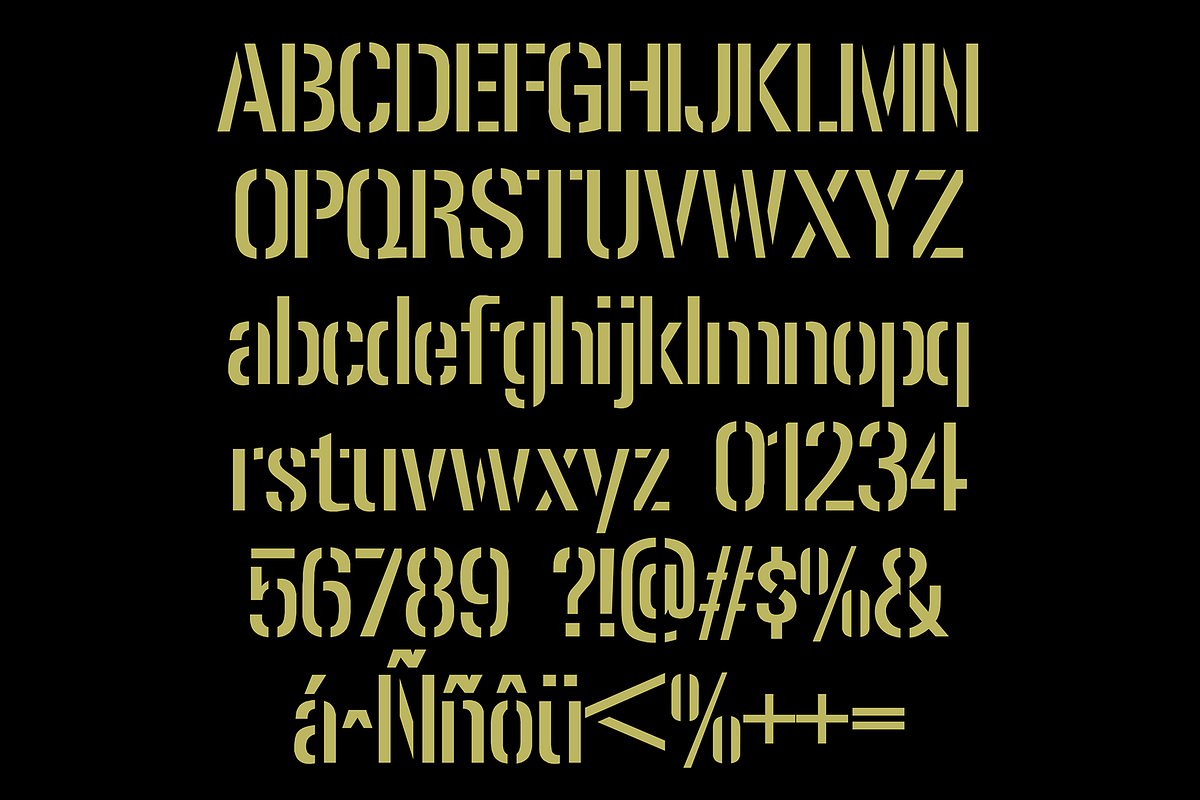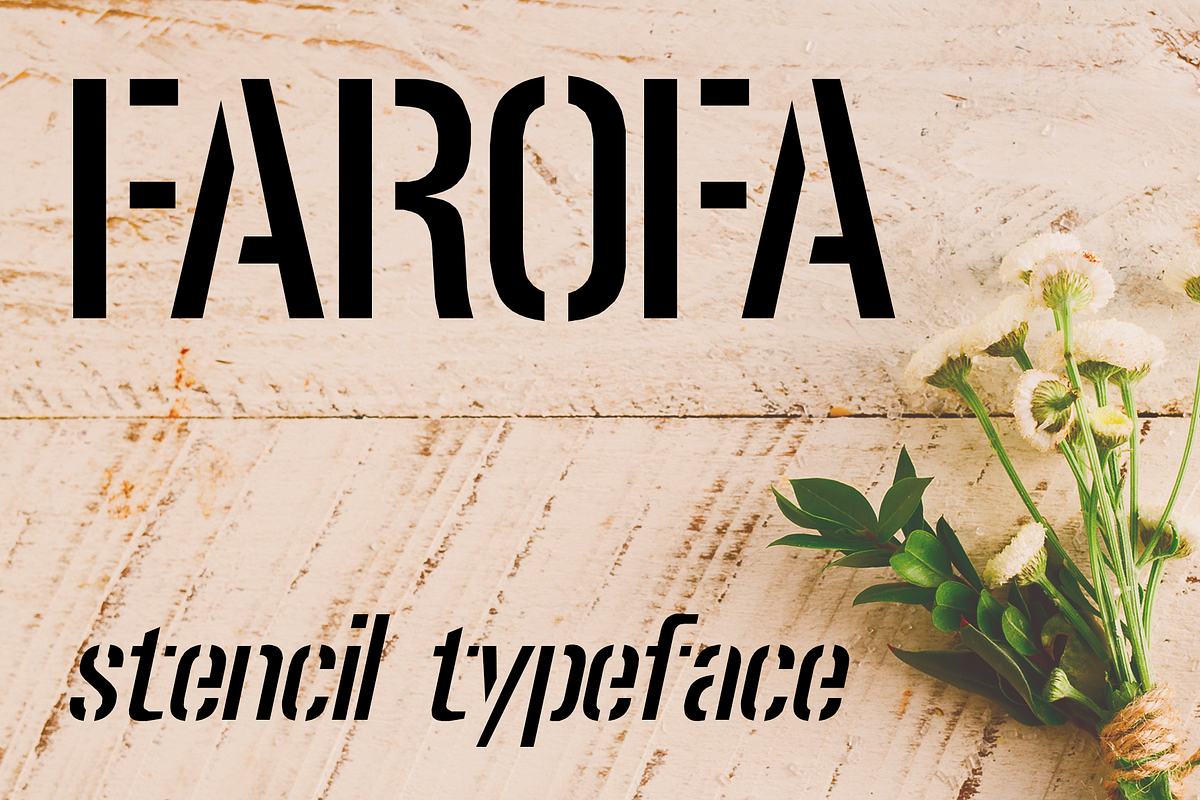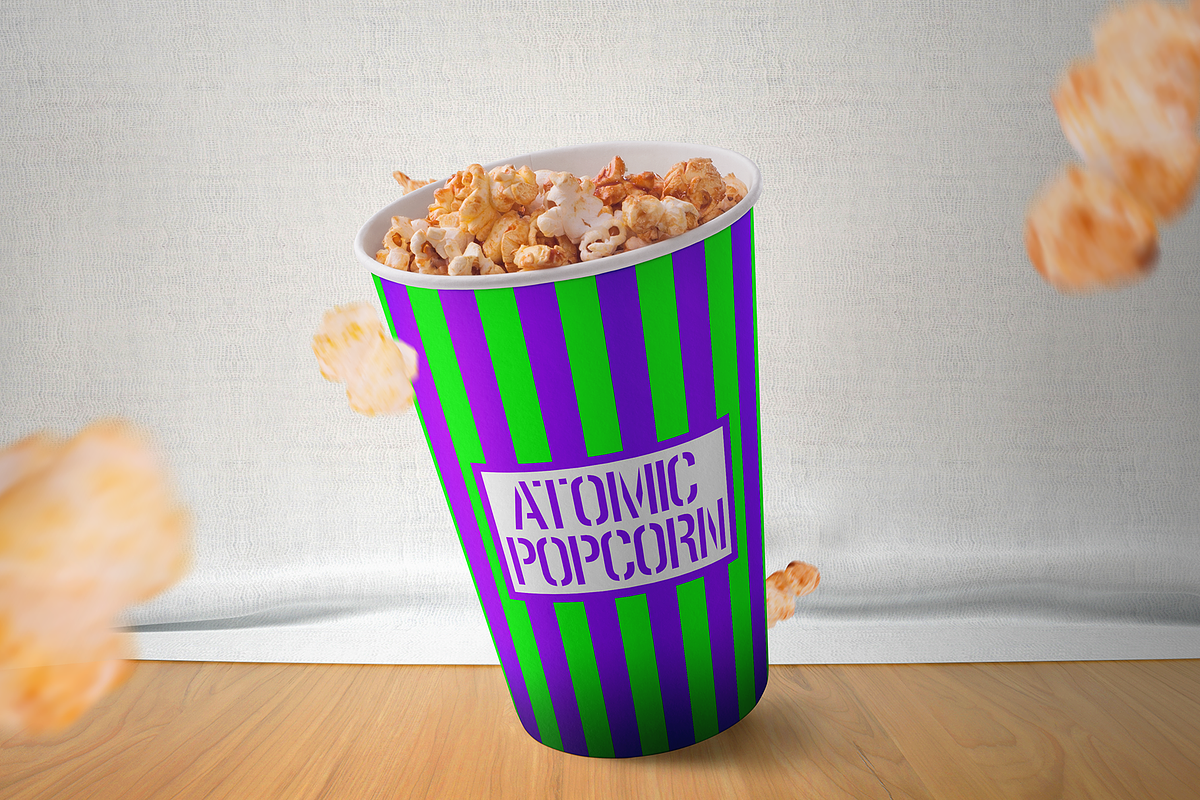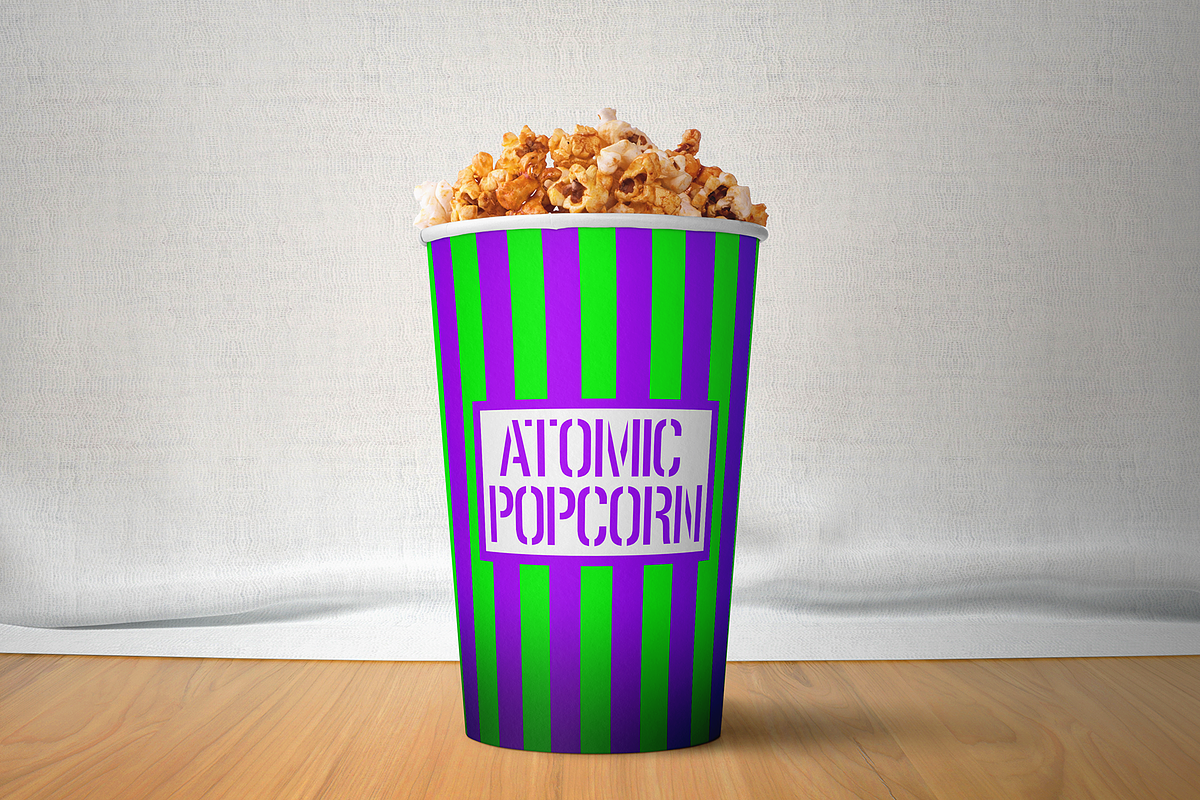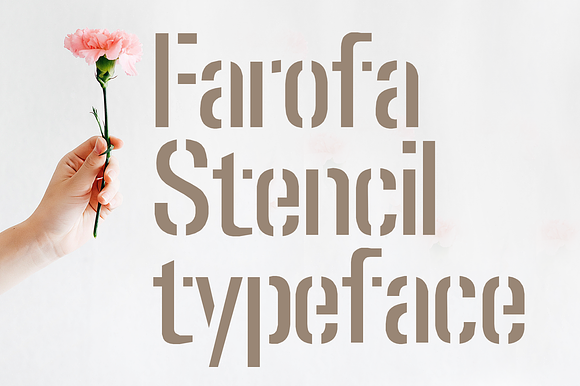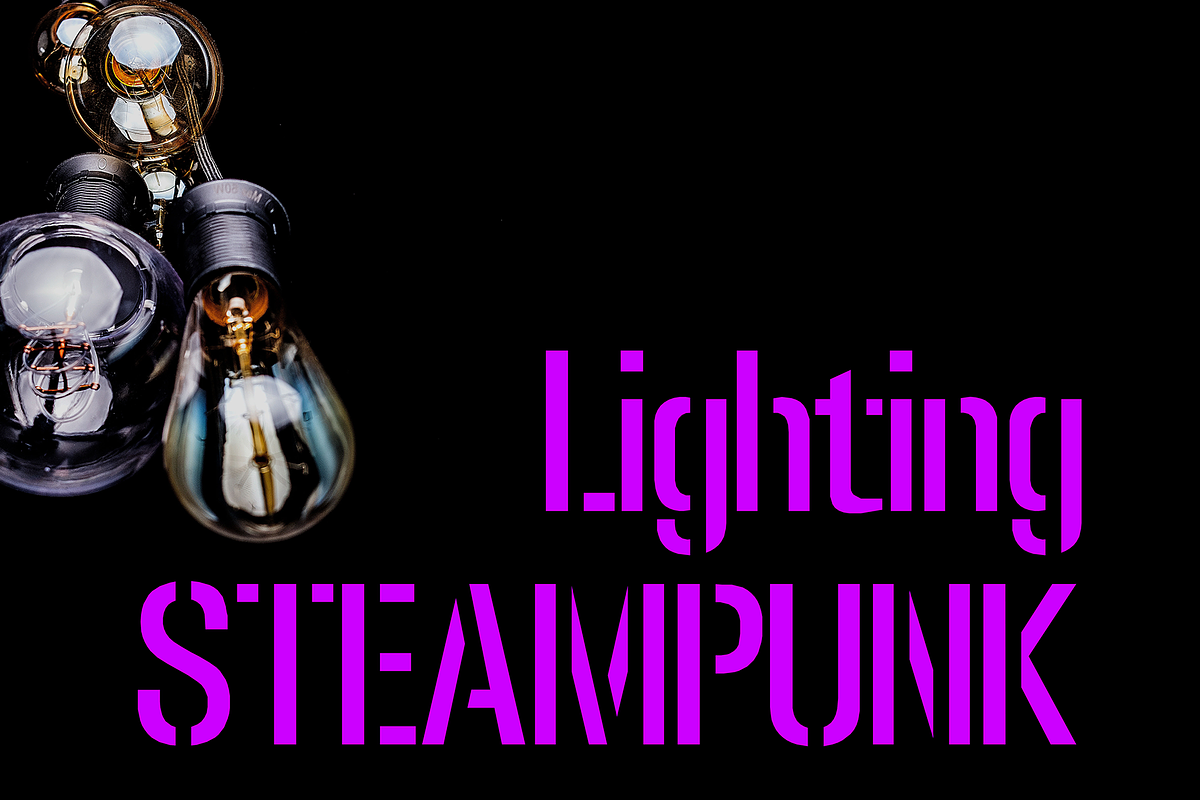
Farofa - stencil typeface
Farofa is a stencil font. It is very light and sometimes modern. Farofa is delicious as the brazilian food it is named after.
- Farofa Regular
- Farofa Italic